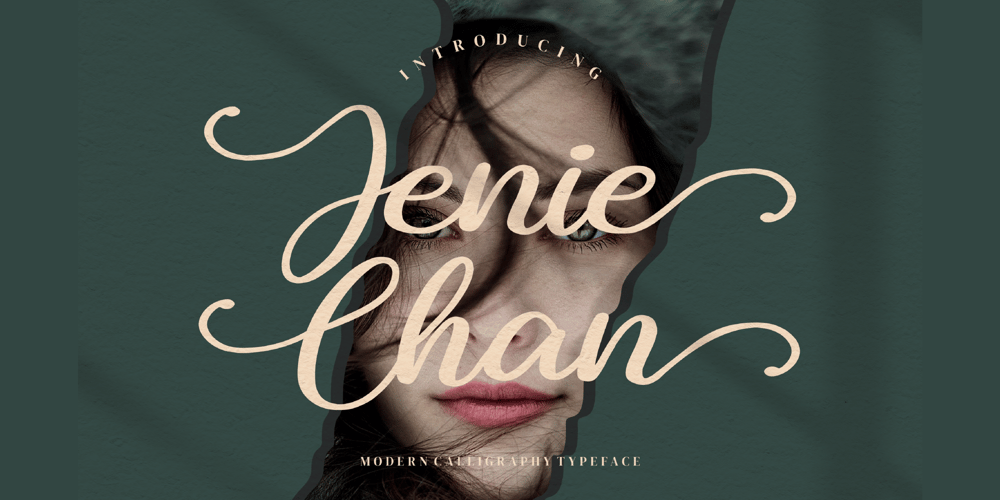
Jenie Chan Font Family was designed by Dimas Alif Maulana and published by Integritype. Jenie Chan contains 2 styles and family package options. Jenie Chan is a delicate, elegant and flowing handwritten font. It has beautiful and well balanced characters and as a result, it matches a wide pool of designs. This font is PUA encoded which means you can access all of the glyphs and swashes with ease!